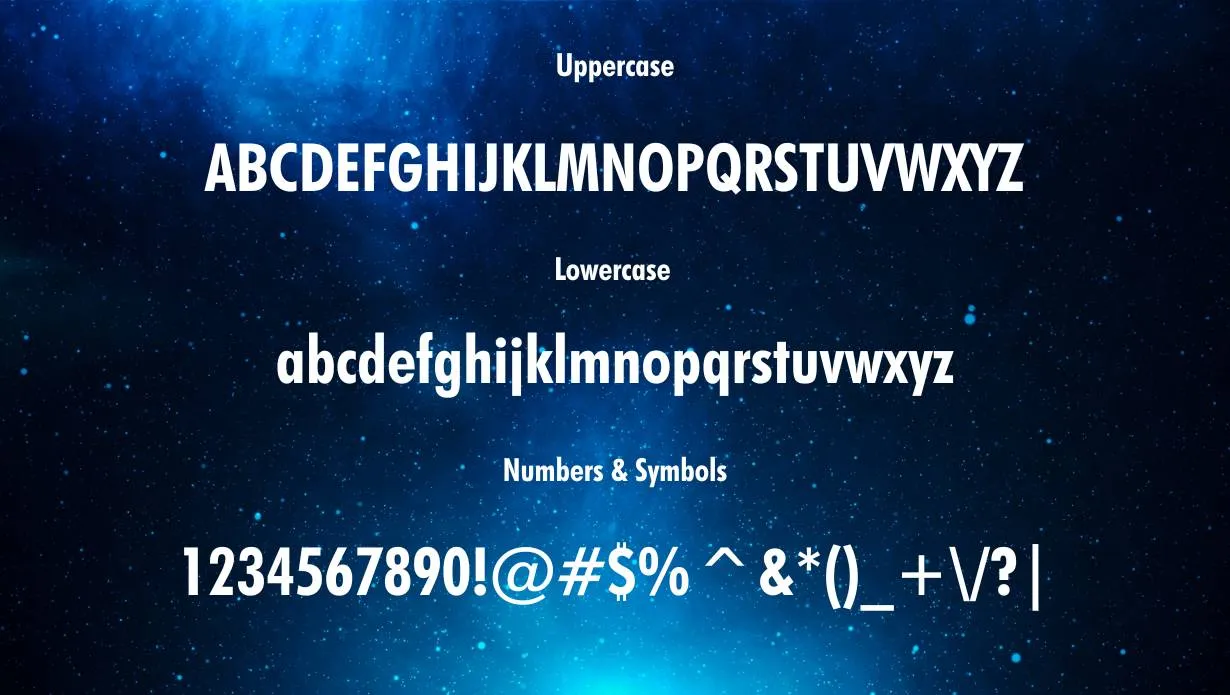
Futura Bold font is the superhero of fonts, making your words stand out with strength and confidence. It’s like giving your text a powerful megaphone, ensuring it’s heard loud and clear.
The weight of Futura Bold is solid, bold enough to grab attention without being overpowering. Its width is sturdy, providing a strong foundation for titles and headings. This font transforms your words into a commanding presence, making them the hero of any piece.
Name | Futura Bold Font |
Designer | Paul Renner |
Style | Sans Serif |